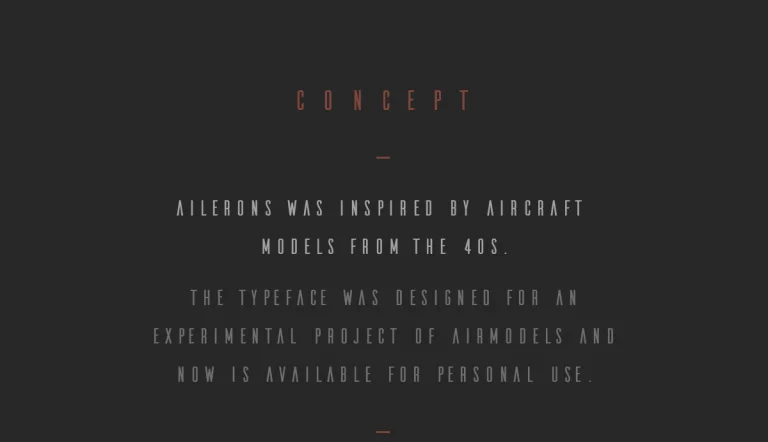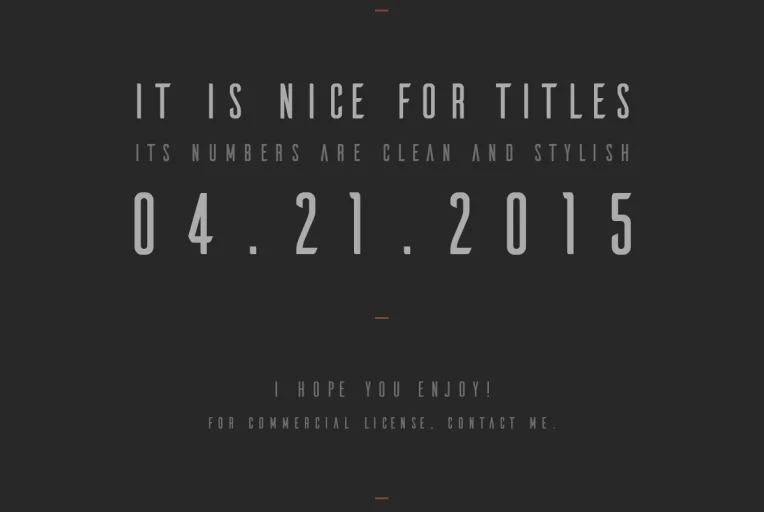
Ailerons is typography with wings tall, narrow, and just a bit retro. Inspired by 1940s plane models, it adds that vintage aviation flair without being cheesy. You’ll spot it in logos, posters, and headers where a slim, distinctive look is a plus.
Designer: Sora Sagano (Ailerons Typeface)
Original Release: ~2015–2017
Style: Neo grotesque sans serif, aircraft-inspired
Narrow, elegant letterforms with curved terminals mimicking cockpit gauges
Extensive family: 8 weights + italics from UltraLight to Black
Clean spacing and varied glyph support (Latin, basic symbols)
Ailerons shine in display settings, titles, headers, or logos where space is tight. Pair it with simple sans serifs like Open Sans or Montserrat to let its sleek form breathe.